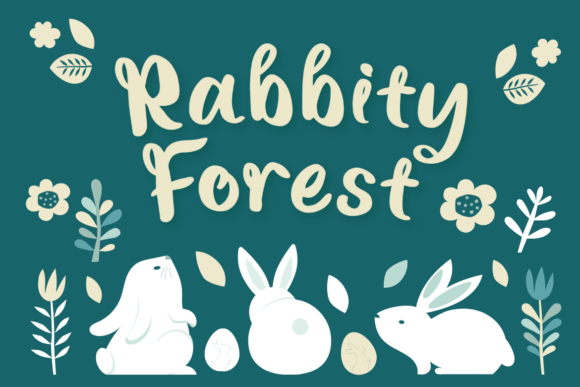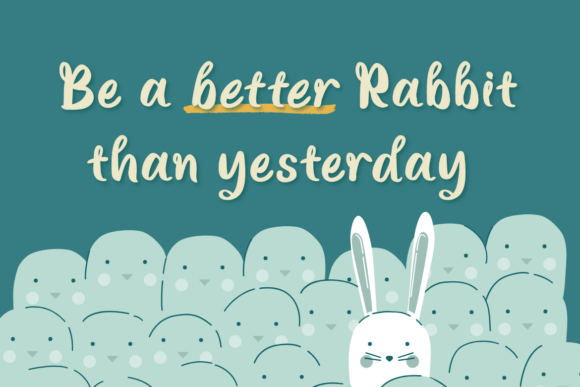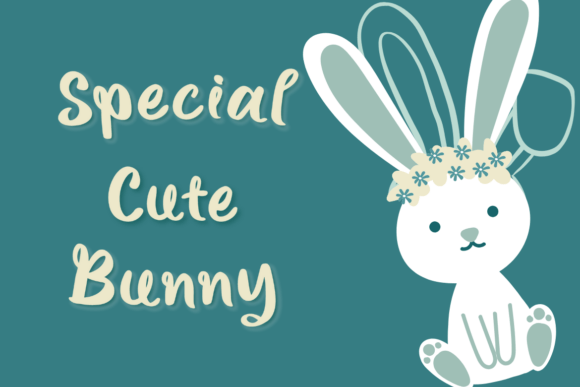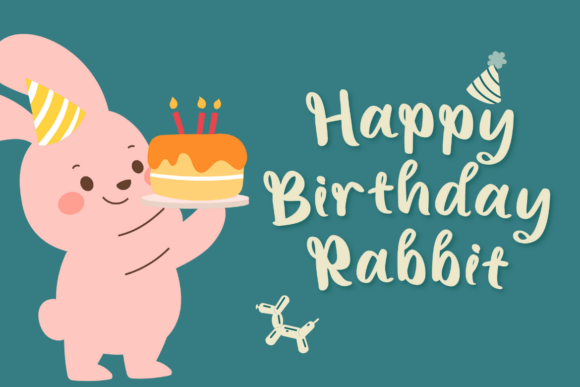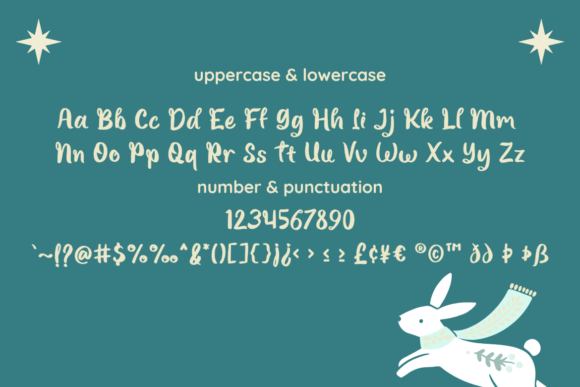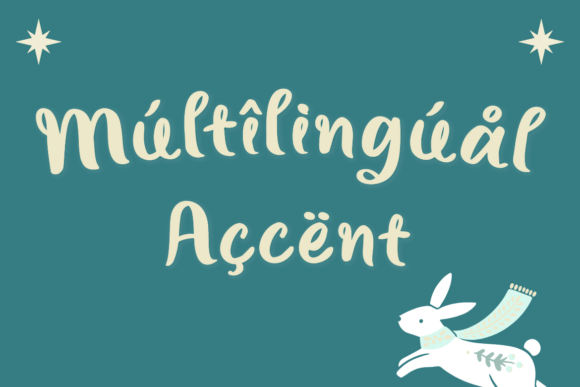
Introduction to Lunyhop Font
Lunyhop is a joyful handwritten font designed specifically for **children’s storybooks, educational materials, and playful branding that needs to stand out with innocence and energy**.
This versatile font family includes Light, Regular, and Italic styles, offering complete typographic flexibility for **Easter campaigns, spring-themed social media content, nursery decorations, toy packaging, school presentations, and fun DIY projects** that require a friendly and whimsical touch The font features a bouncy baseline and smooth, rounded terminals that mimic the spontaneity of marker pen lettering, giving every piece of text a uniquely organic and warm appeal that captures attention instantly.
Key Features of Lunyhop Font